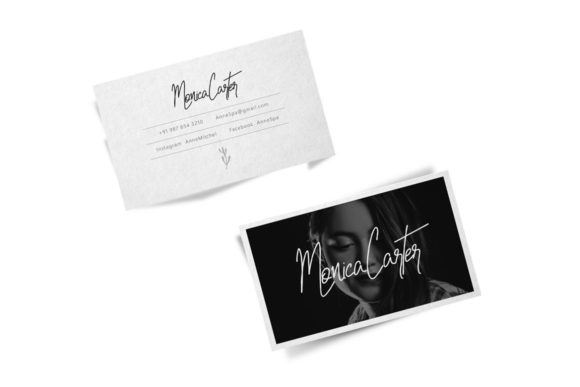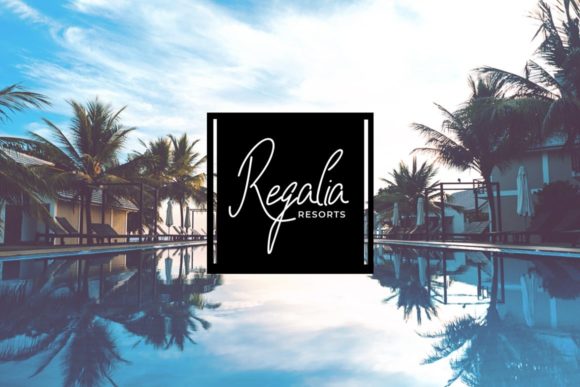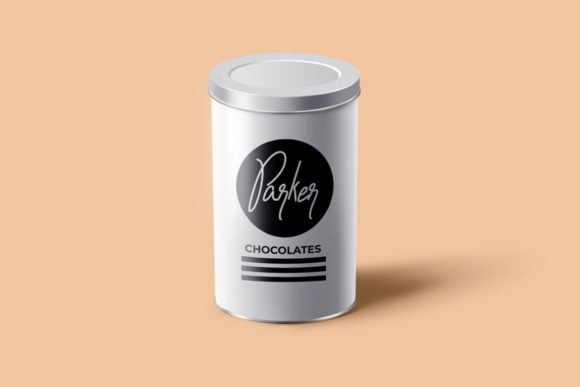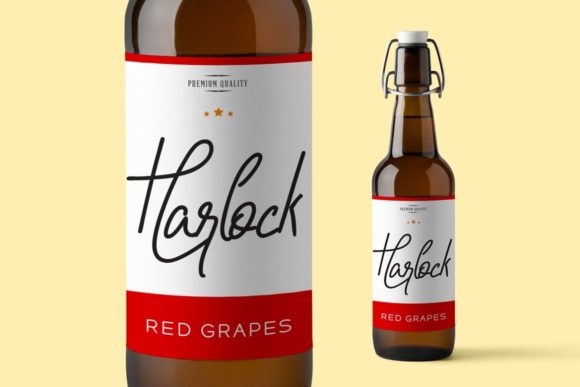
About Portia-Mora Font
Portia-Mora is an extremely unique and beautiful handwritten signature font for luxury branding, logotype, wedding invites and promotional graphics. Portia-Mora is handcrafted with unique custom brushes (including 4 weights) and will be sure to add a high-end feel to your designs.